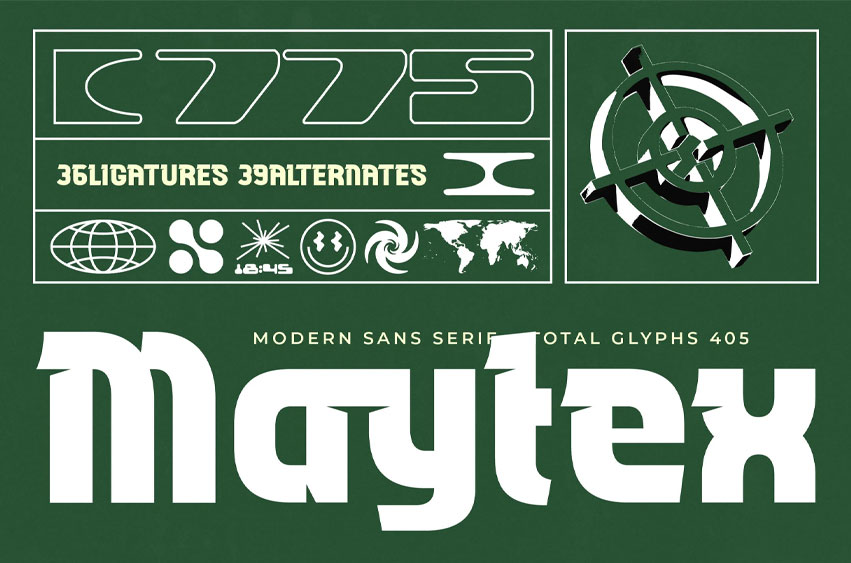
Maytex Font is a bold modern sans serif engineered with futuristic industrial energy, combining sharp modular cuts and heavy geometric builds to create a powerful visual presence for branding, esports identity, tech merchandise, posters, dashboards, and UI-inspired layouts.
Featuring 405 total glyphs with 36 ligatures and 39 alternates, Maytex delivers flexible typographic expression—ranging from brutal, mechanical weight to sleek sci-fi aesthetics—making it a standout choice for designers who want a strong, forward-thinking type system with a distinct tactical personality.